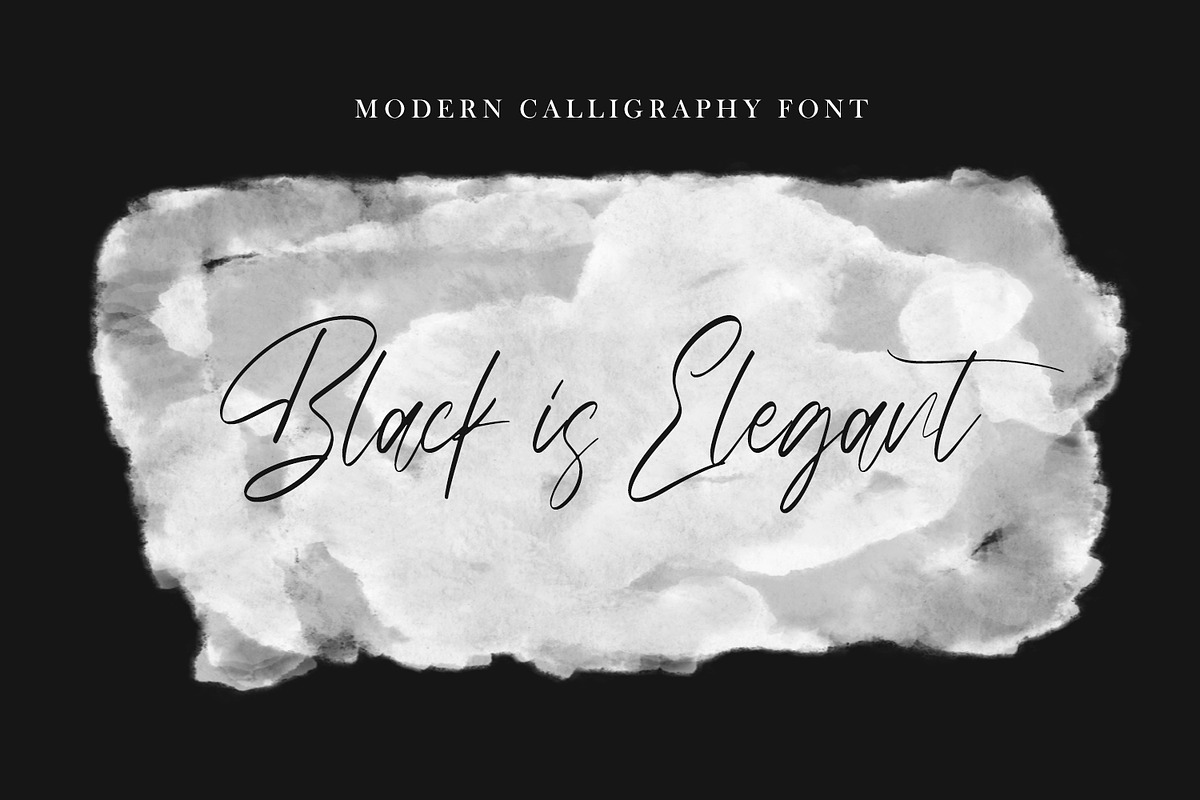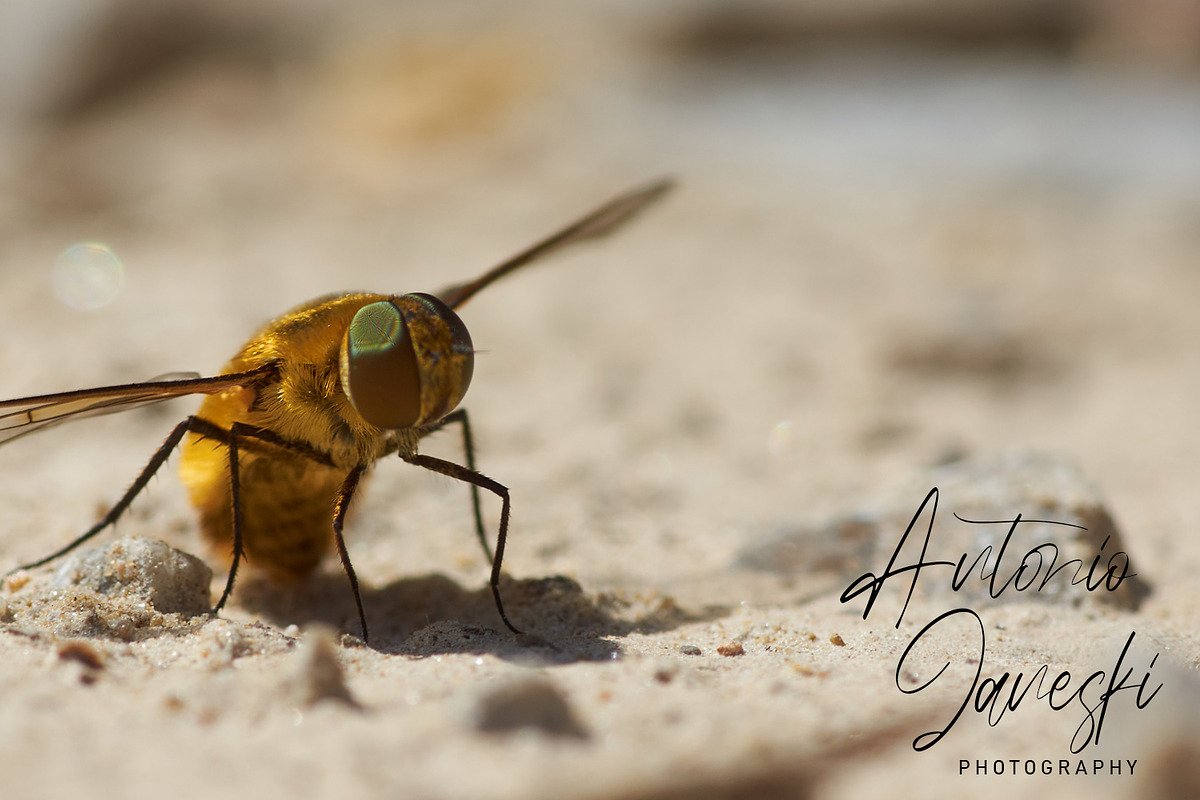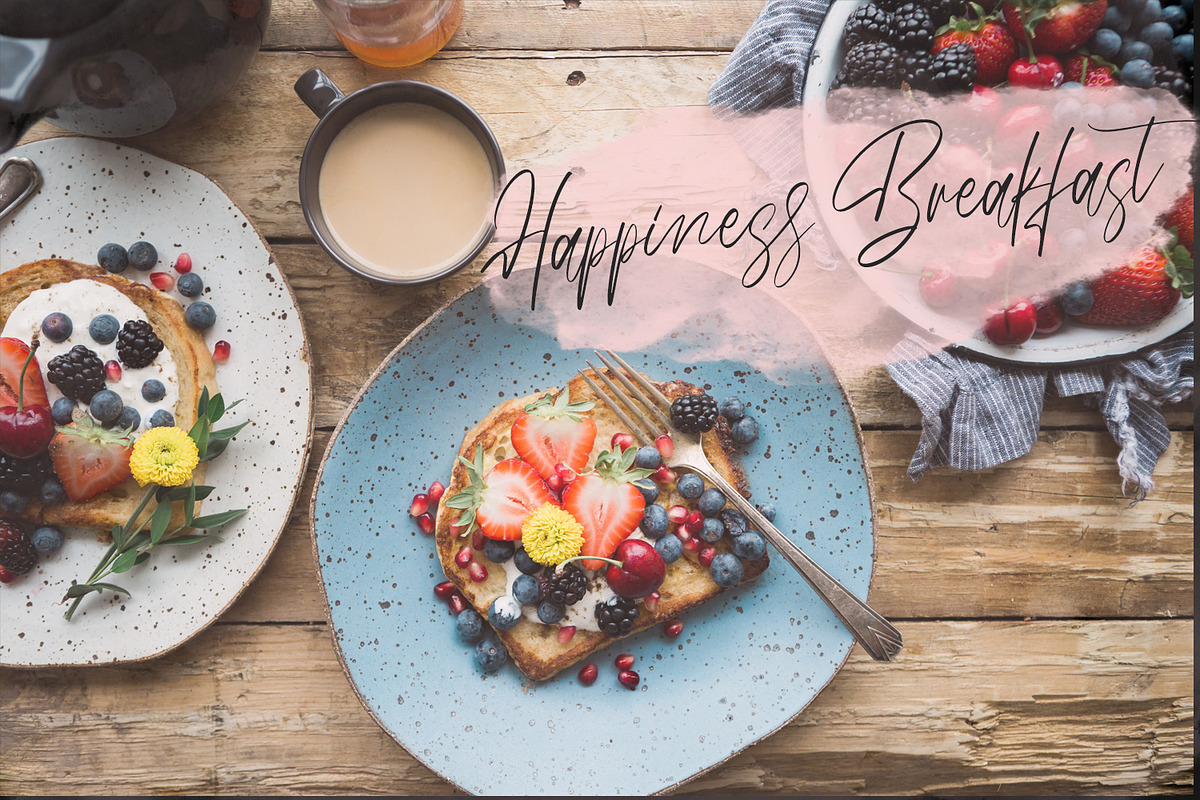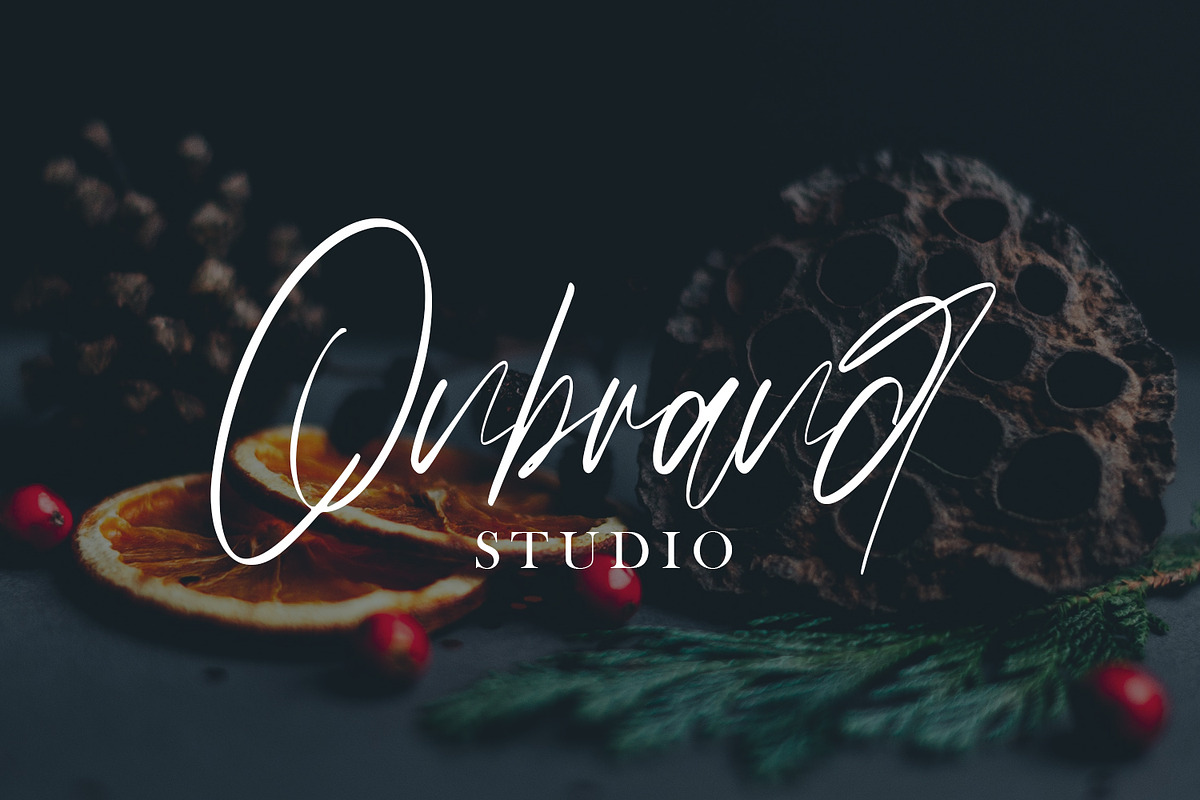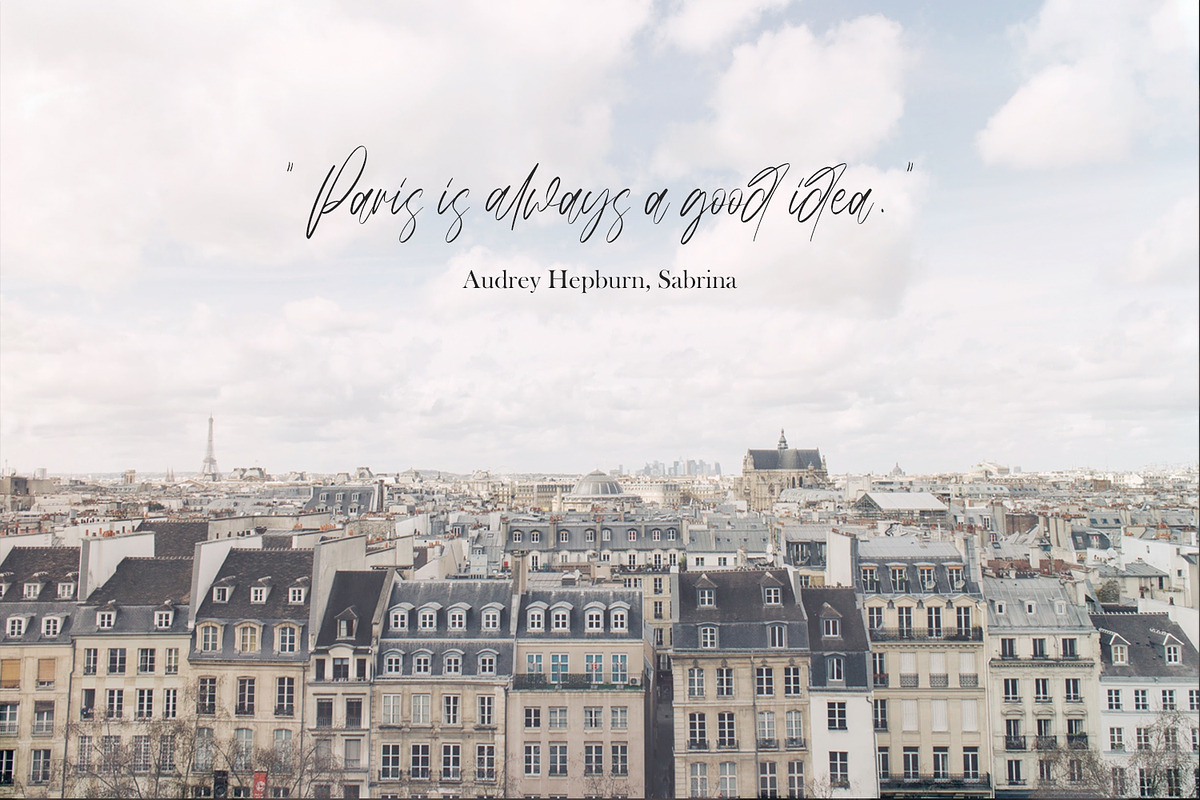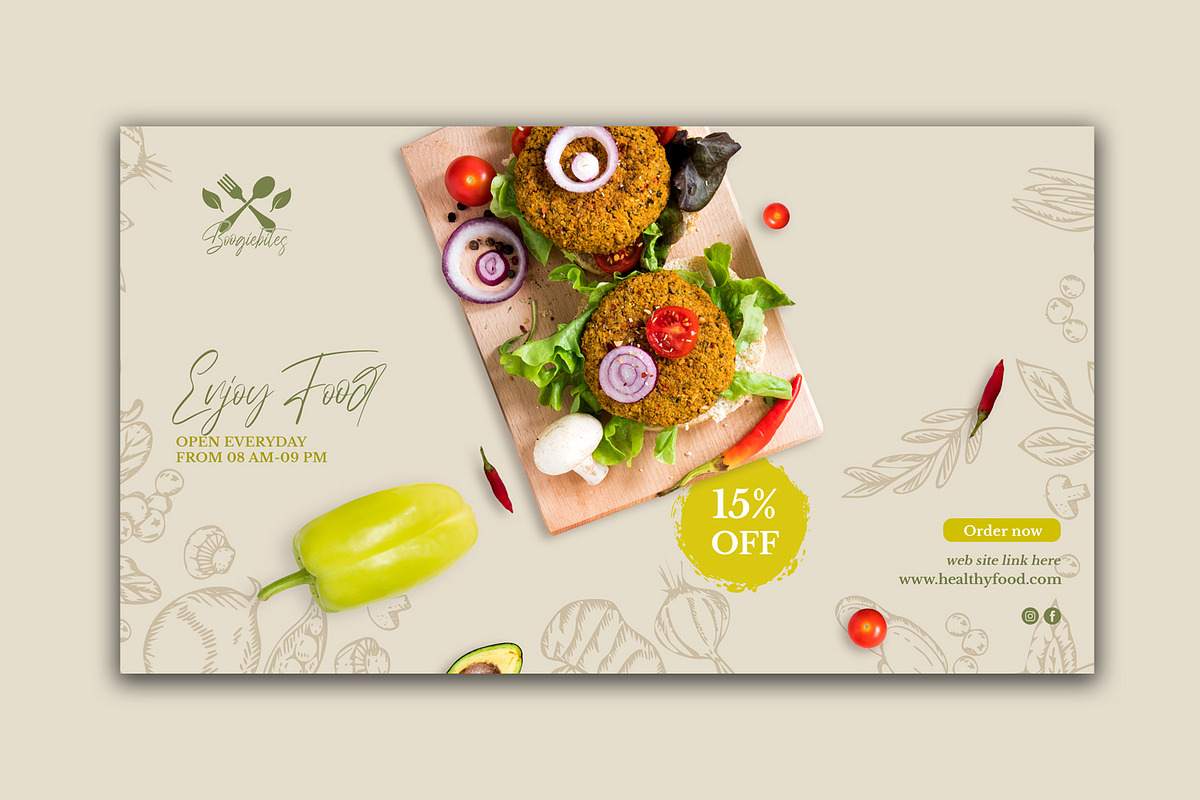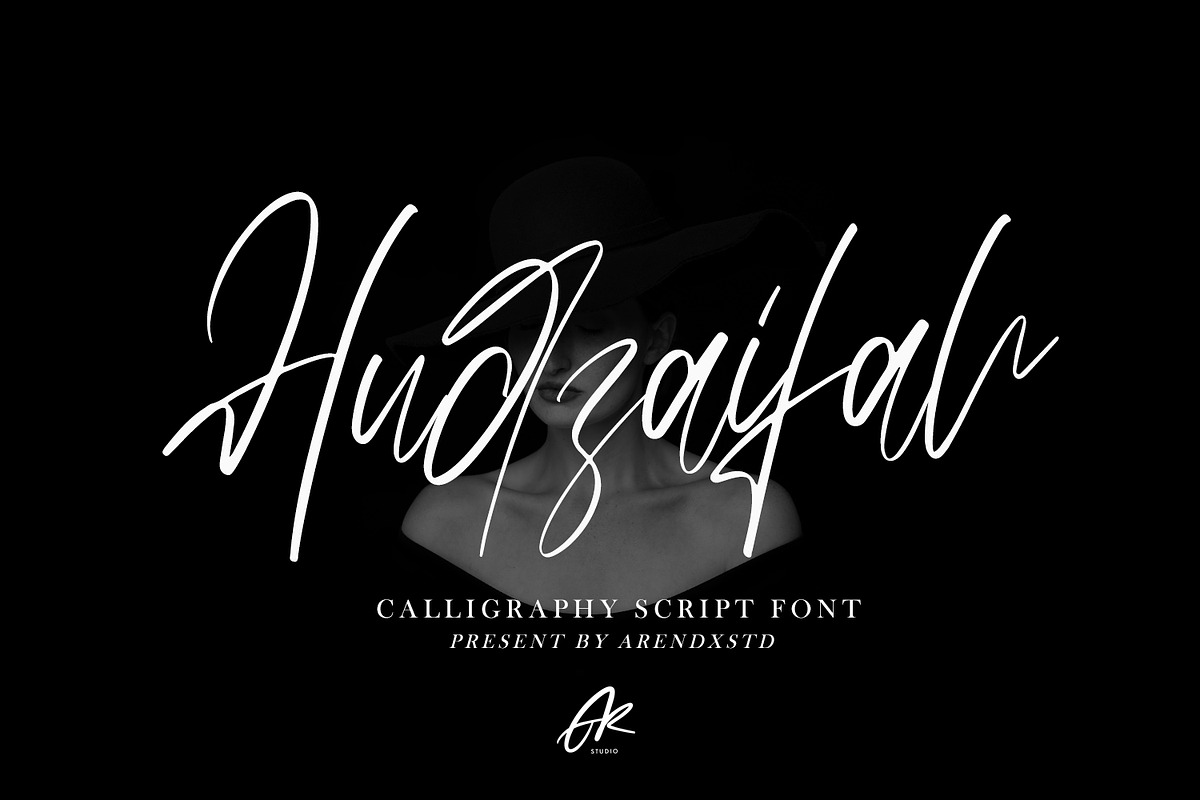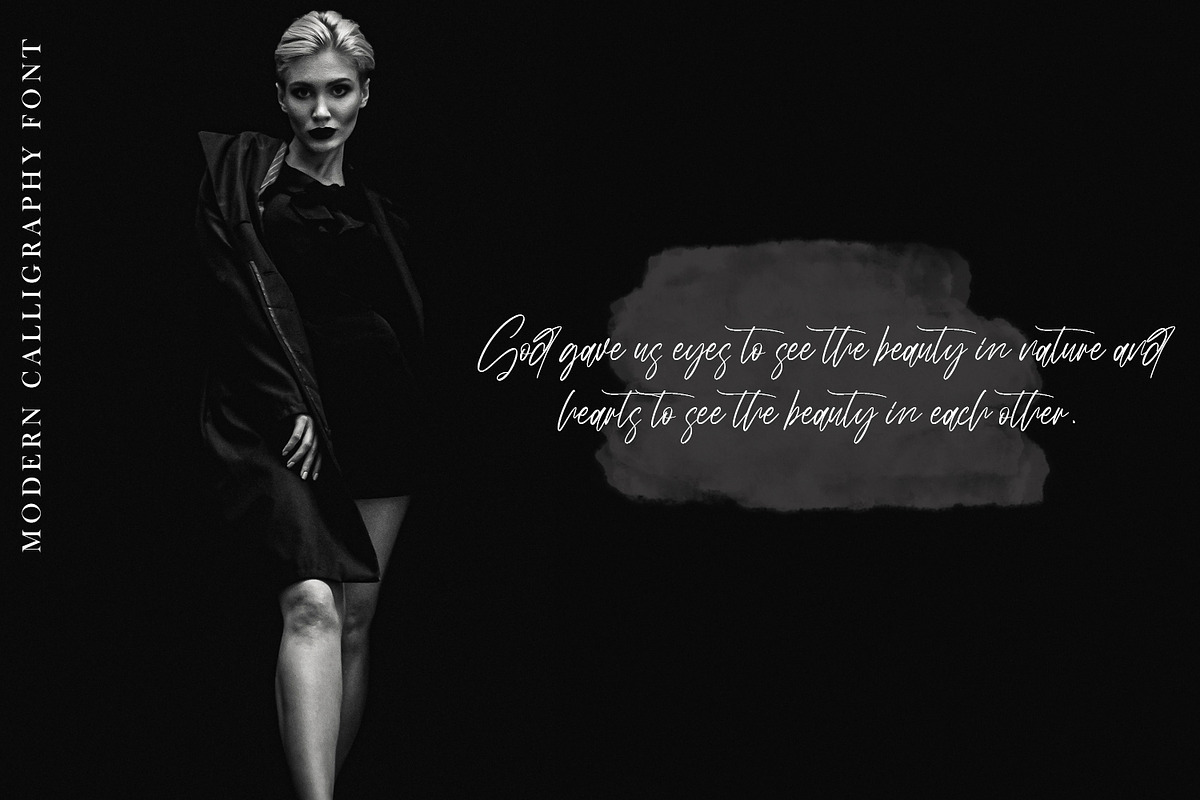
Hudzaifah - Modern Calligraphy Font
Introducing my latest font is Hudzaifah, a handwritten font which is very elegant and modern for you to use and your design interests be it for logos, branding names, posters, podcasts and so on. This is perfect for you all.